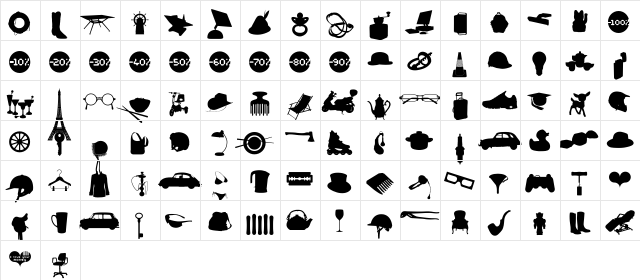
WC Sold Out A Bta Regular
Design Context for WC Sold Out A Bta Typeface
WC Sold Out A Bta is a composed and adaptable typeface that performs quietly and consistently across a wide range of design contexts.